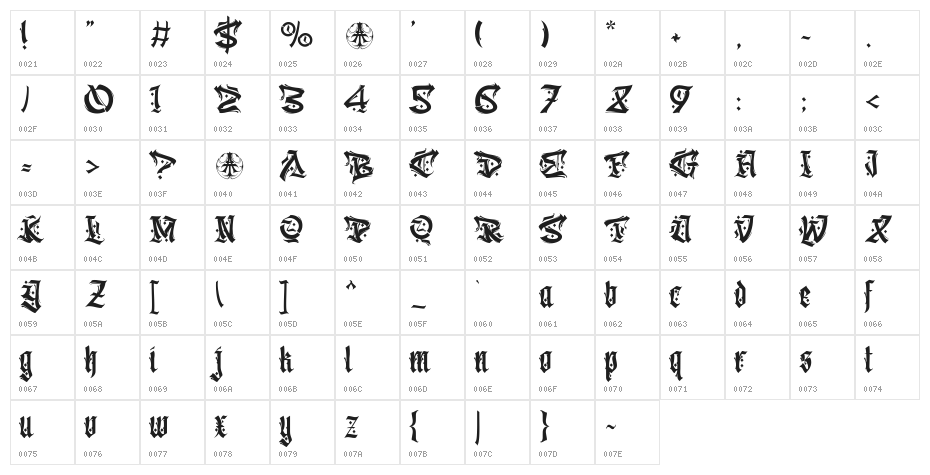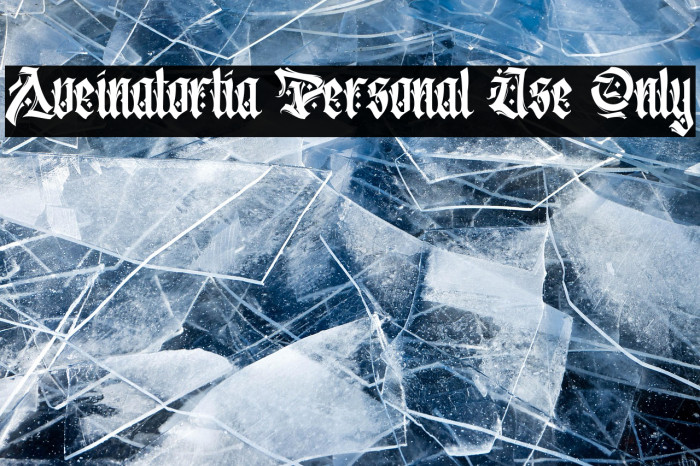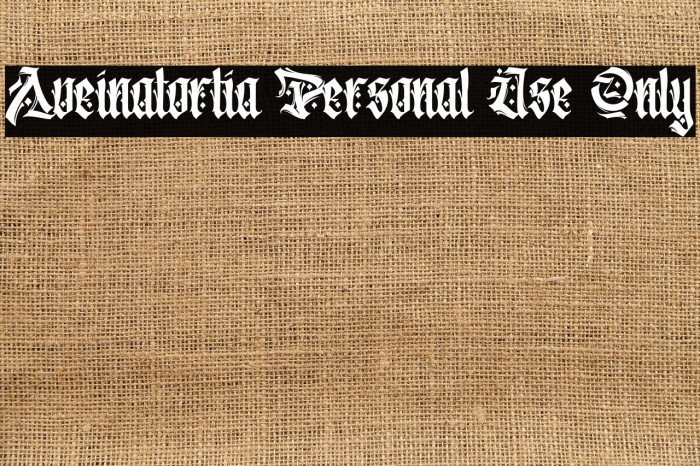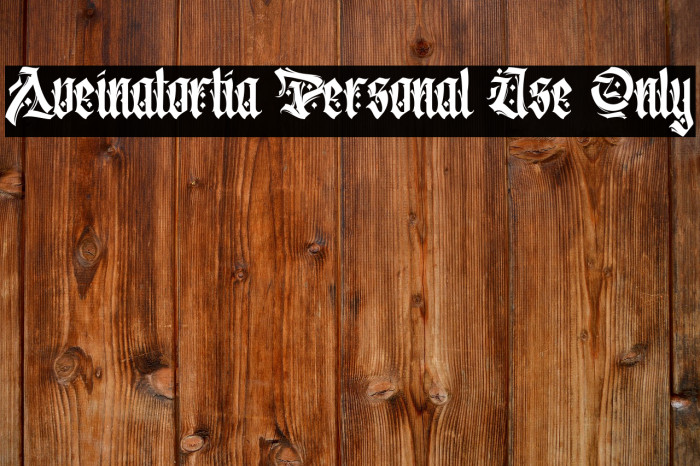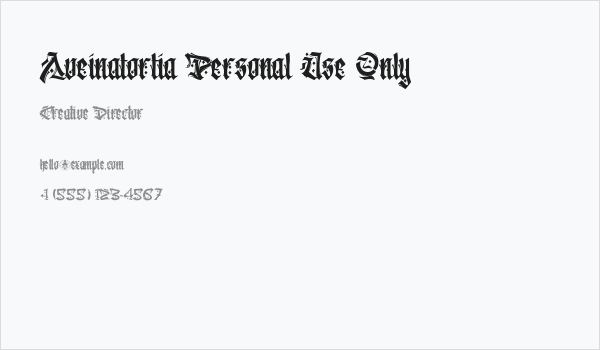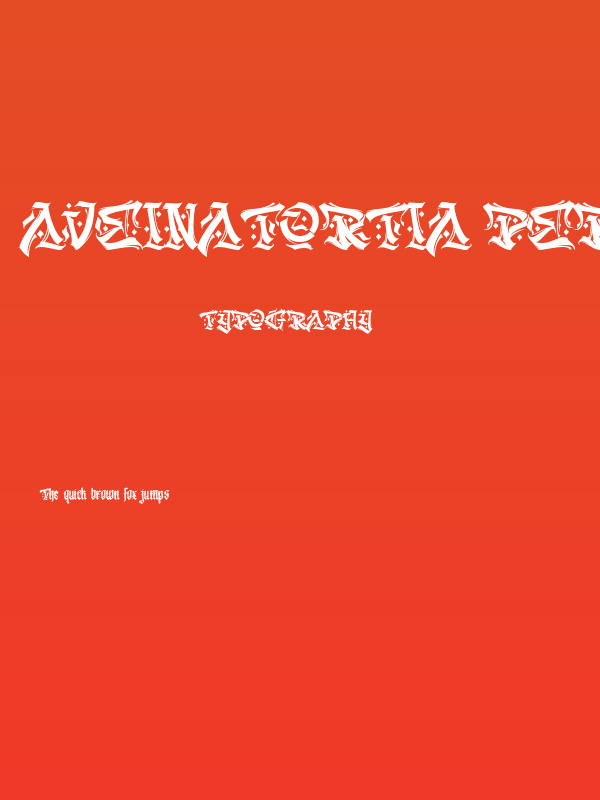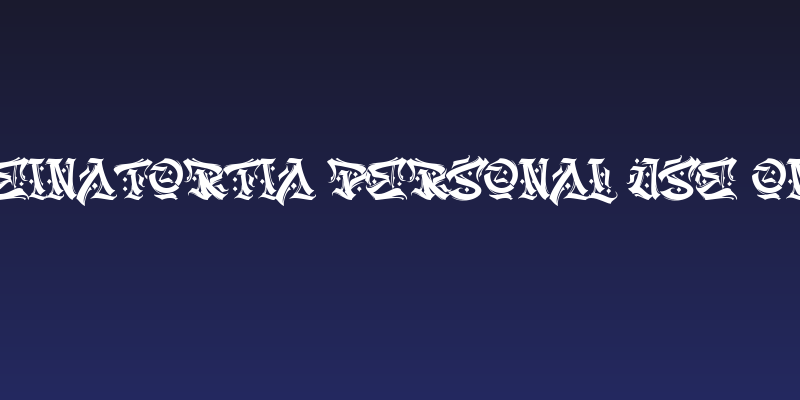
Aveinatortia Personal Use Only Font
Aveinatortia Personal Use Only Description
This font features an intricate and bold design, reminiscent of traditional blackletter styles with a modern twist. The characters are highly decorative, with sharp edges and elaborate flourishes that give it a striking appearance. The uppercase and lowercase letters maintain a consistent style, with the uppercase being more elaborate. Numbers and special characters follow the same ornate design, ensuring uniformity across all glyphs. The font's dramatic flair makes it suitable for attention-grabbing designs.
| Proposed Projects | Ideal for tattoo designs, gothic-themed posters, album covers, and branding that requires a dramatic and bold statement. |